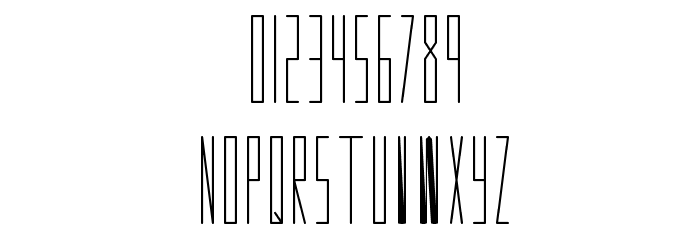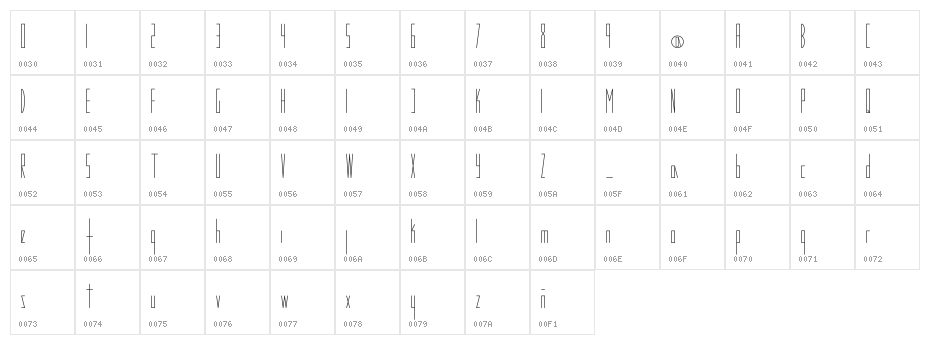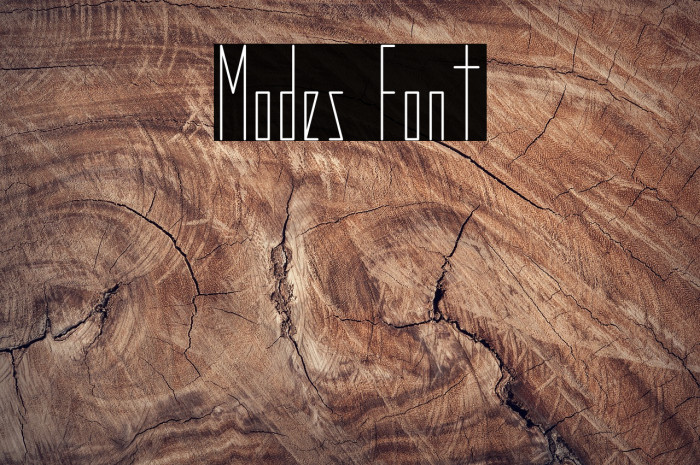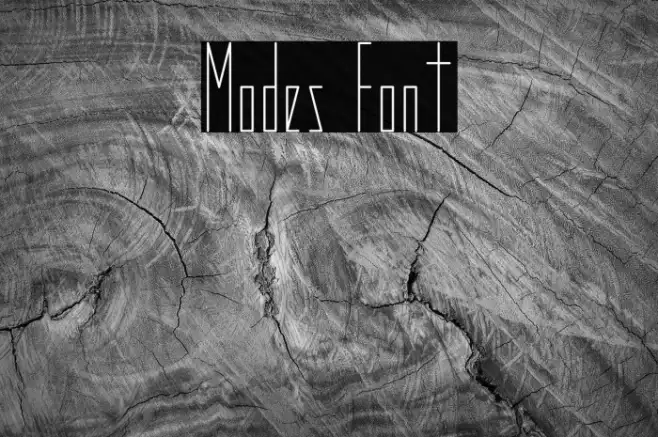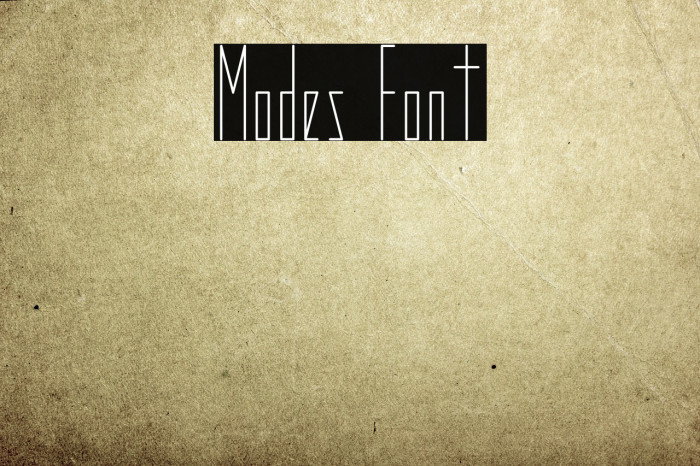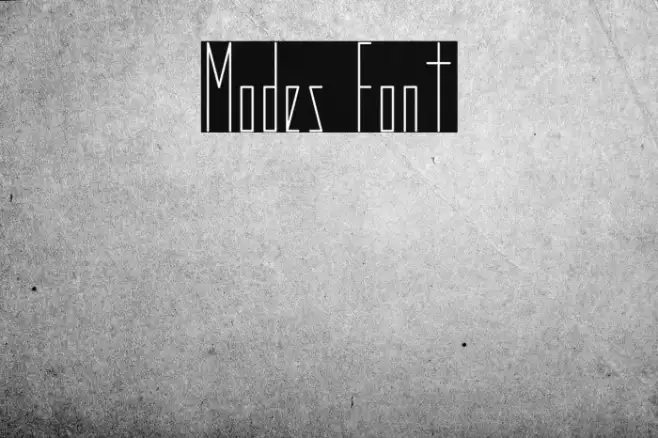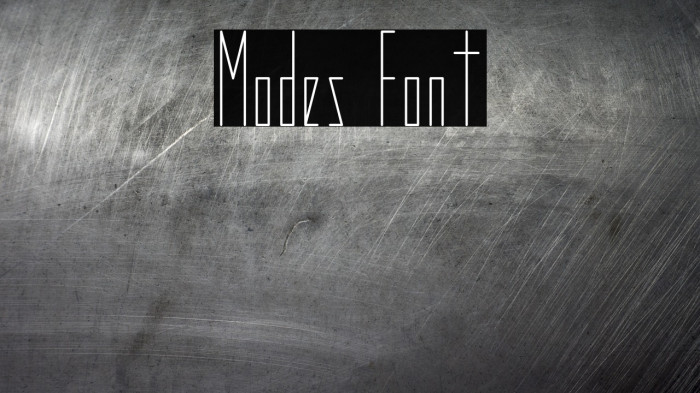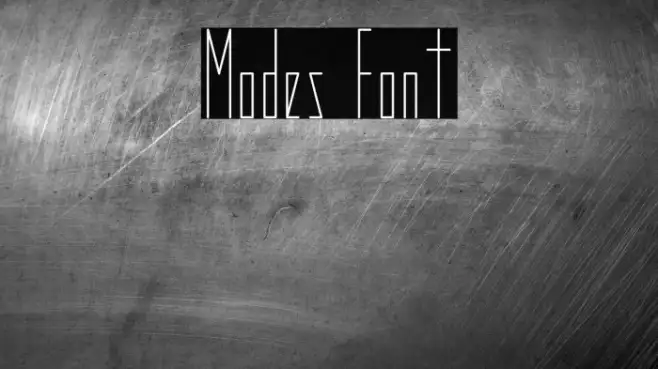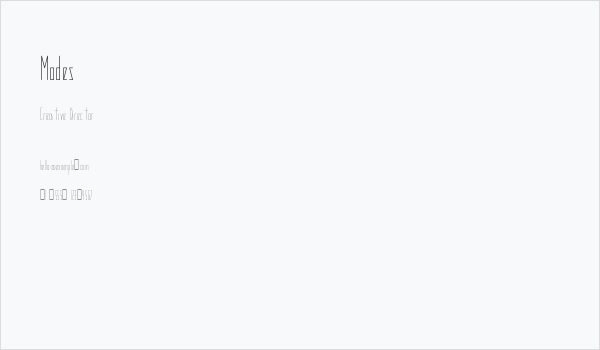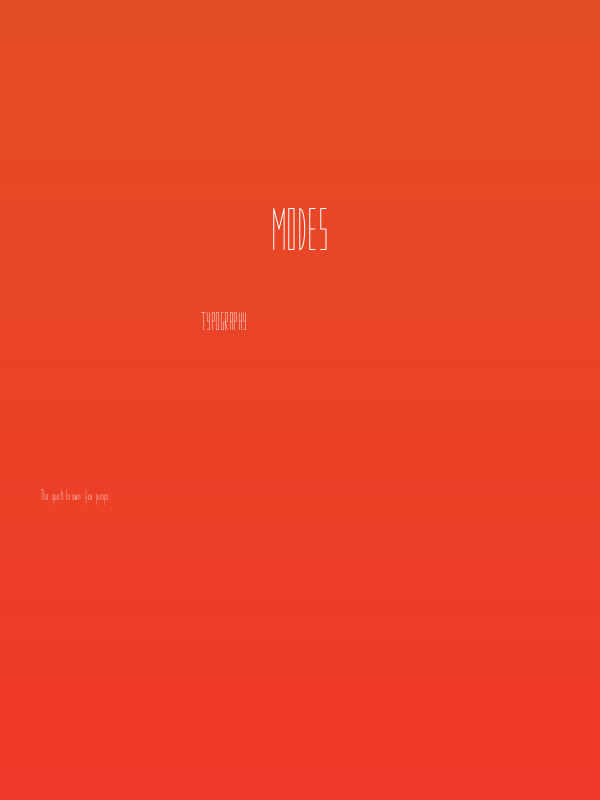
Modes Font
Modes Description
This font features an ultra-condensed and elongated design, characterized by its tall, narrow letters with minimal stroke contrast. The uppercase and lowercase letters share a consistent vertical alignment, creating a sleek and modern appearance. The numerals follow the same narrow style, maintaining uniformity across the character set. The font's geometric structure and clean lines make it suitable for contemporary design projects. Its unique style is particularly effective for creating a striking visual impact in headlines or logos.
Proposed ProjectsIdeal for modern branding, fashion magazines, posters, and logo design.